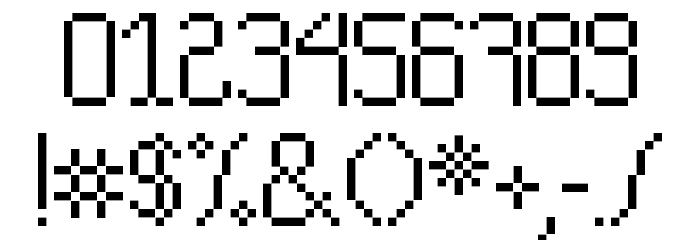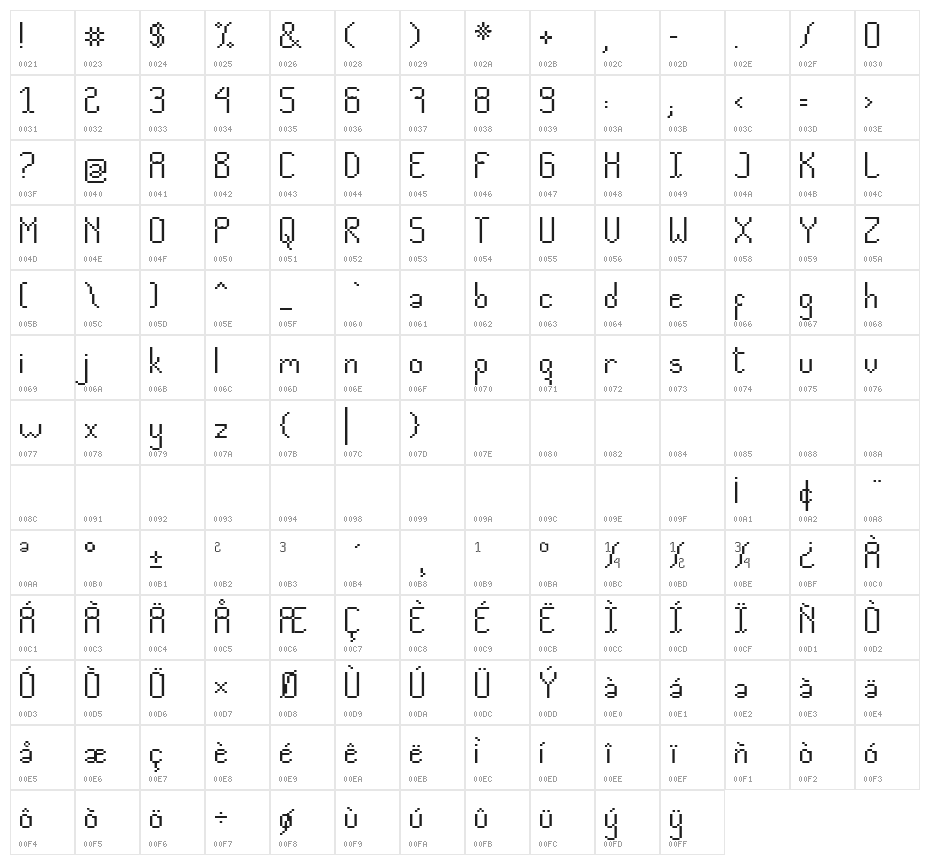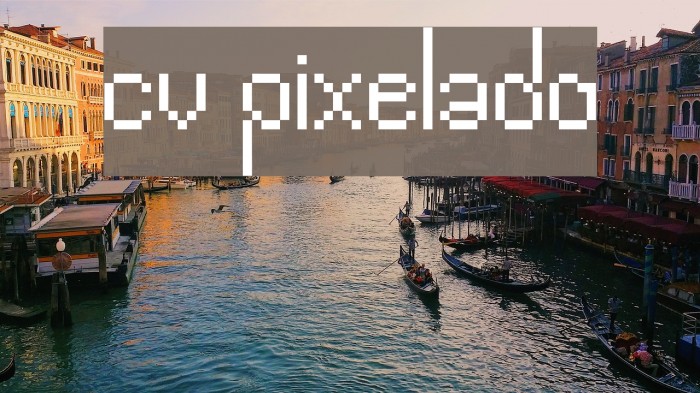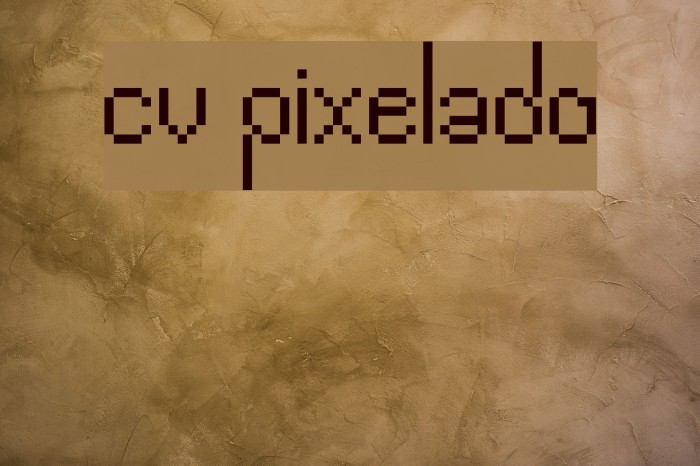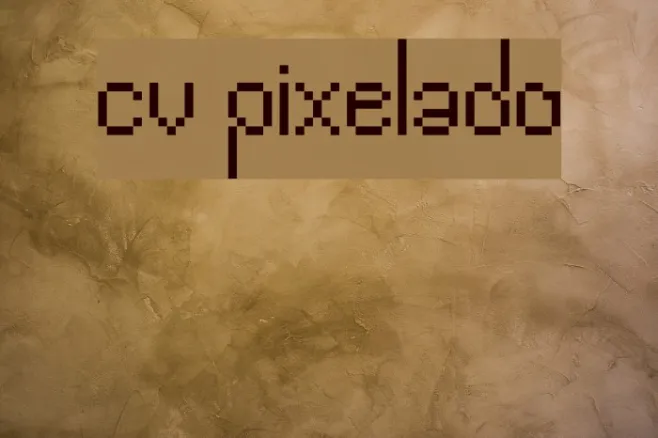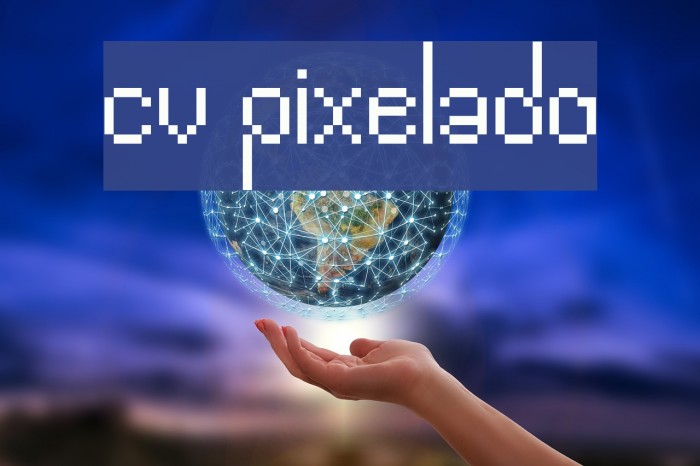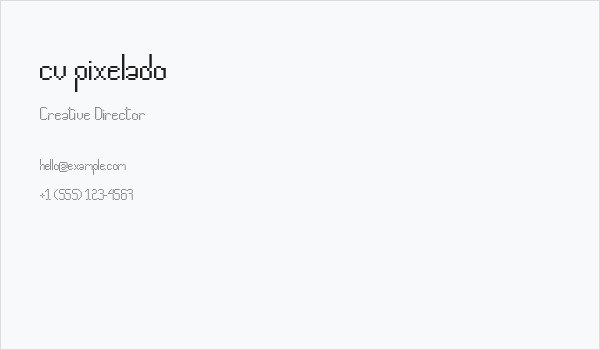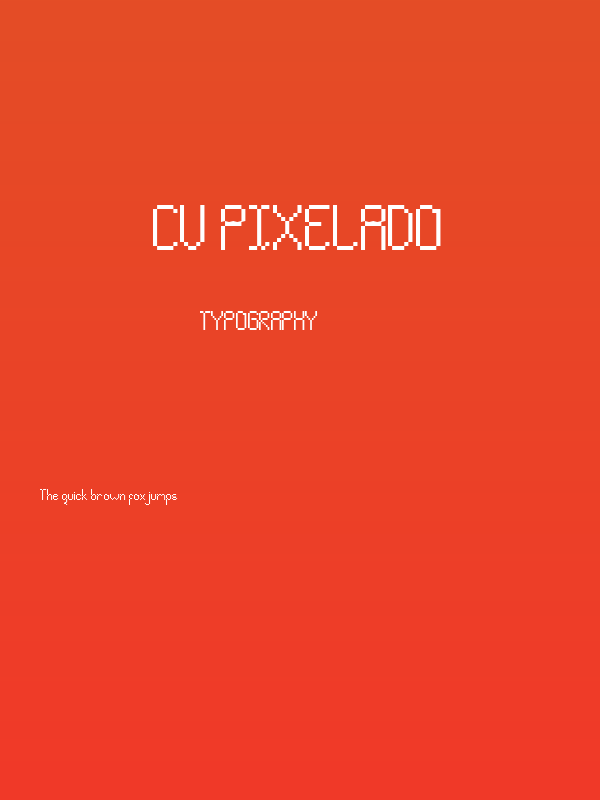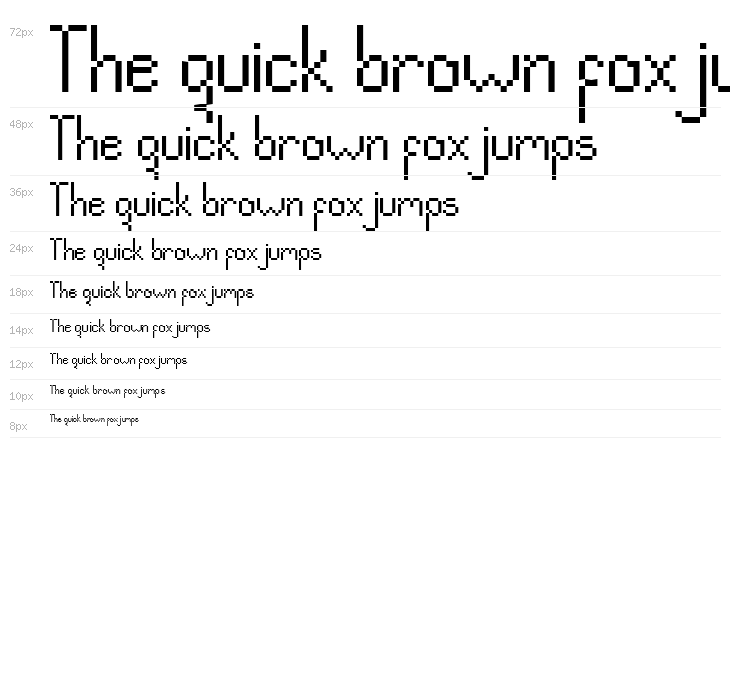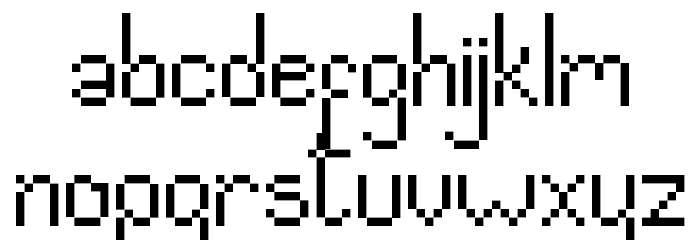
cv pixelado Font
cv pixelado Description
This font features a distinct pixelated style, reminiscent of early digital displays and retro video games. Each character is composed of small square blocks, giving it a grid-like appearance. The uppercase and lowercase letters maintain a consistent height, with the lowercase being slightly smaller. Numbers and special characters follow the same pixelated design, ensuring uniformity across the font. The overall look is geometric and structured, with each character clearly defined by its pixelated edges. This font evokes a sense of nostalgia and is perfect for projects that aim to capture a vintage digital aesthetic.
| Use Case | Headlines, Logos, Digital Art |
| Proposed Projects | Ideal for retro video game designs, digital art projects, and any creative work that seeks to evoke a sense of nostalgia for early digital displays. |